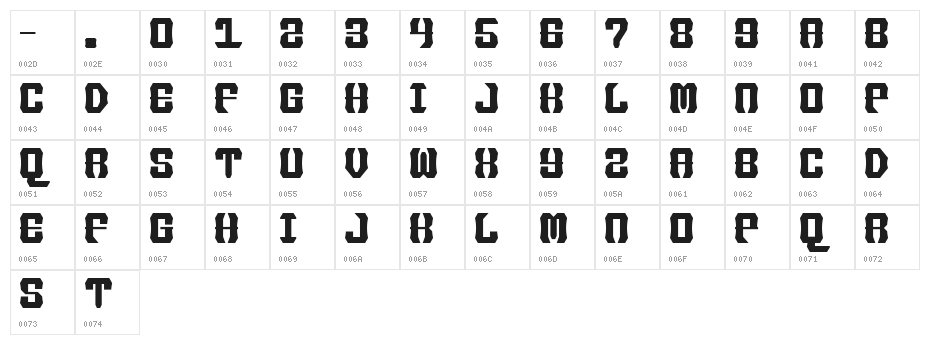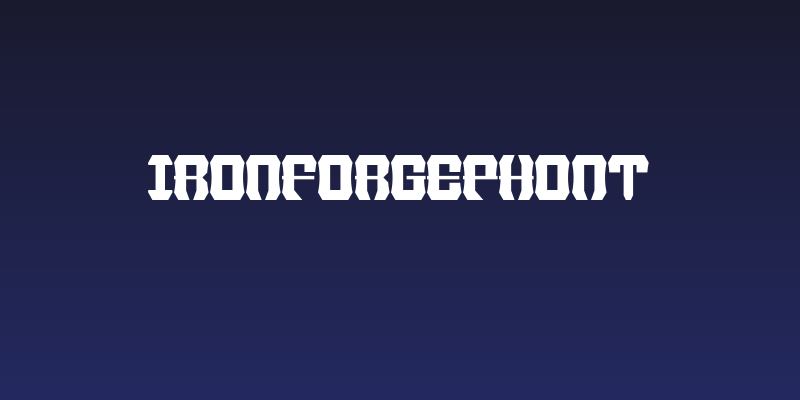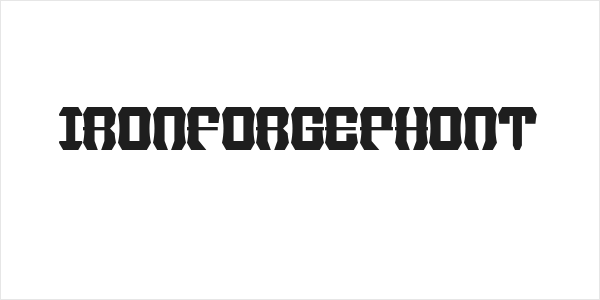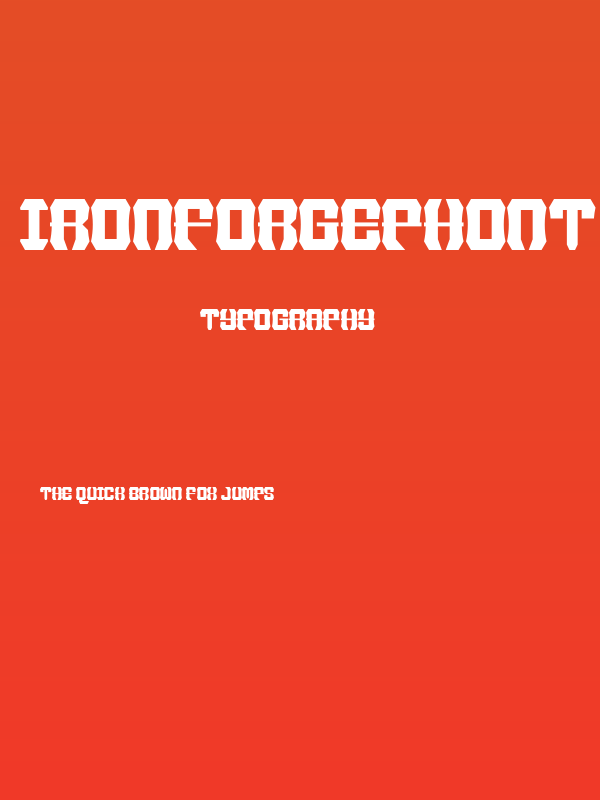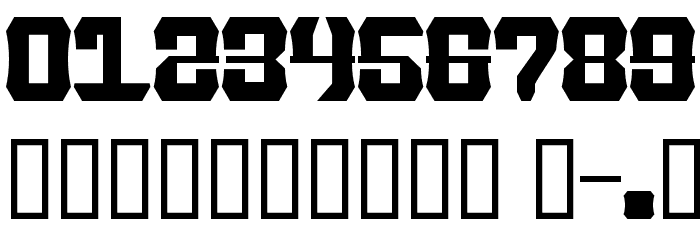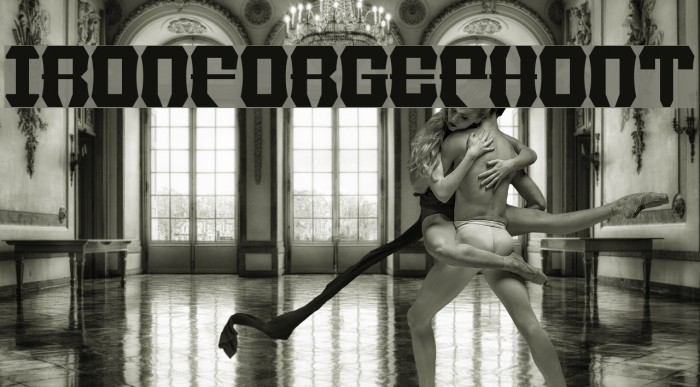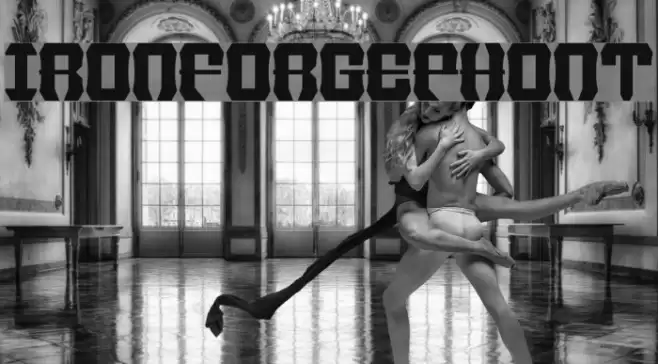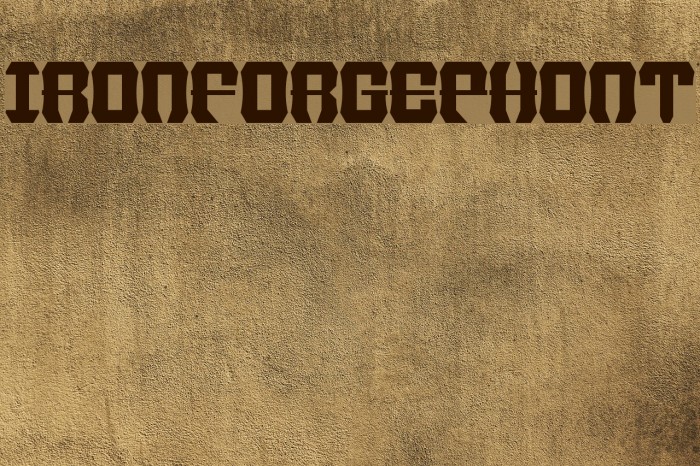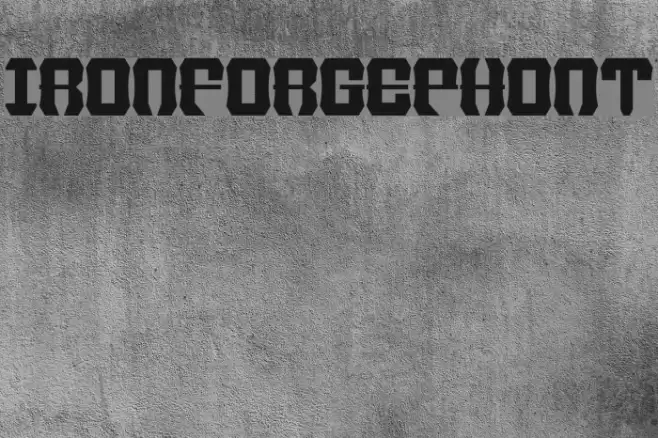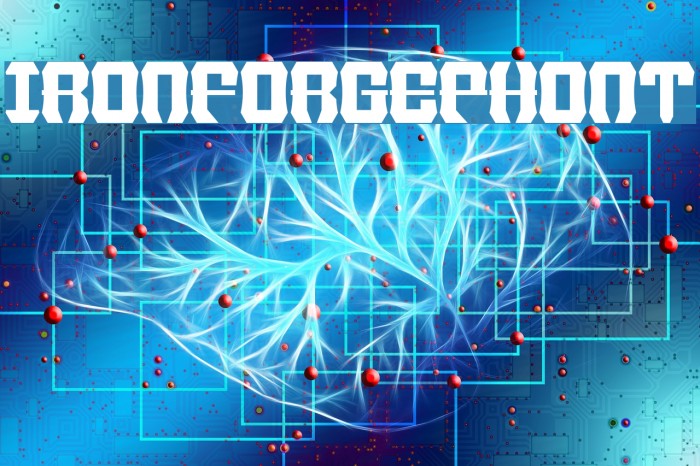
IronForgePhont Font
| カテゴリ | Old fashioned |
| 全体的なスタイル | Industrial, Modern |
| おすすめプロジェクト | Ideal for use in branding, posters, video game titles, and any project requiring a strong, industrial aesthetic. |